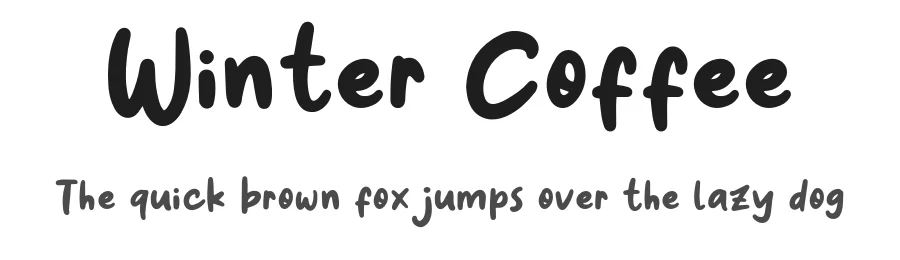
About Dacomment Font
Dacomment Font is a script font that shines as a display or heading face. Pair it with a clean sans-serif or serif font for body text β the contrast creates a clear hierarchy while the two styles stay balanced and easy to read.
Dacomment Font
Dacomment Font is a script handwritten typeface by Khurasan, ideal for logos, invitations, branding, and creative projects.